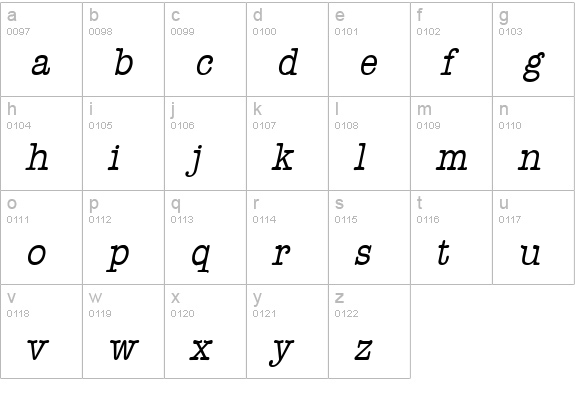
Headline Condensed Italic Font Details
Headline Condensed Italic is a distinctive, condensed-width, italic variant in the Headline typeface family \xE2\x80\x94 well suited to design and typography projects.
Introducing Headline Condensed Italic font, a sleek and sophisticated typeface that effortlessly adds an air of elegance to any design project. With its condensed and italicized form, this font exudes a sense of modernity and style, making it perfect for headlines, titles, and bold statements. Crafted with meticulous attention to detail, Headline Condensed Italic strikes the perfect balance between legibility and visual impact. Its condensed nature allows for maximum space efficiency, making it an ideal choice for designs where information needs to be conveyed concisely and effectively. The italicized slant adds a touch of dynamism and flair, ensuring that your text stands out from the crowd. But what sets Headline Condensed Italic font apart is not just its stunning aesthetics, but also its accessibility. We believe that great design should be available to everyone, which is why Headline Condensed Italic font is freely available to download at FontsMarket.com. Whether you're a professional designer or a casual enthusiast, this font is at your fingertips, ready to elevate your projects with its contemporary charm. So go ahead, unleash your creativity and make a bold statement with Headline Condensed Italic font. Whether it's for a magazine spread, a website banner, or a branding project, this font is sure to captivate and engage your audience. Download it for free at FontsMarket.com and let your designs speak volumes with Headline Condensed Italic font.